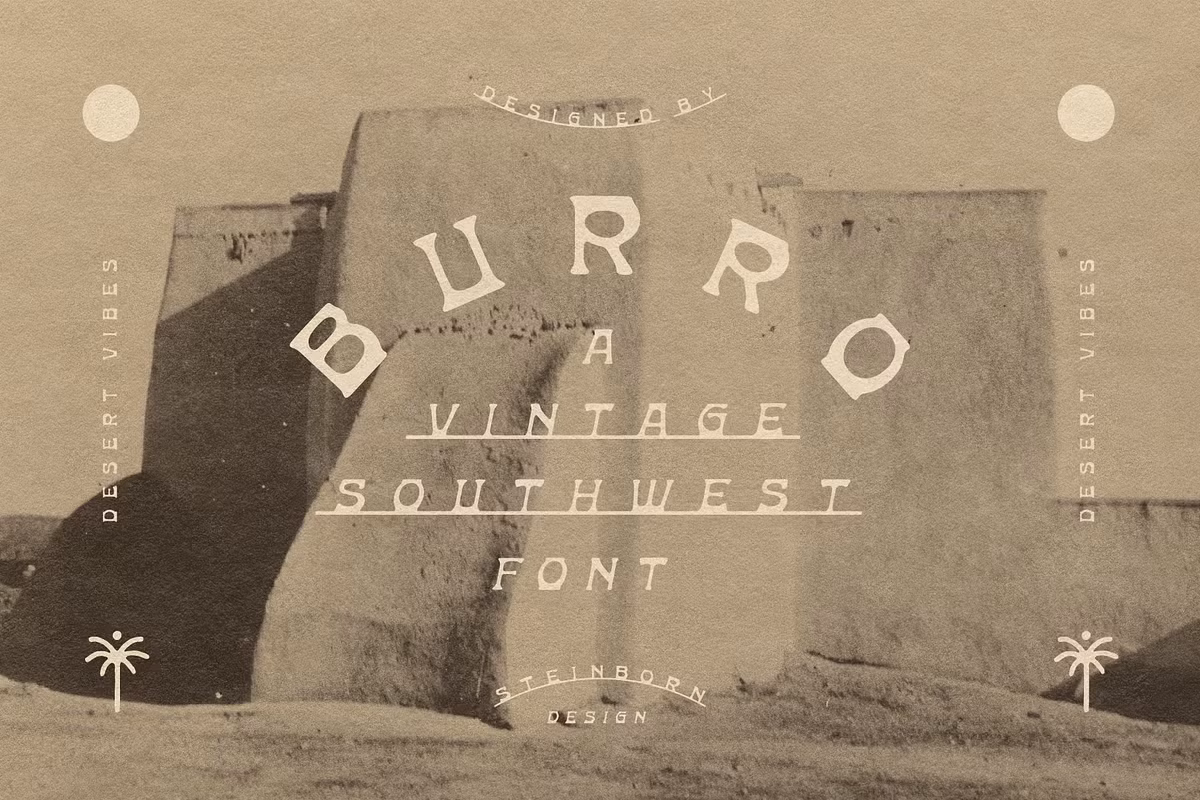
This rustic font is perfect for southwestern restaurant branding, Mexican cantina signage, cowboy bar graphics, desert resort materials, rodeo event posters, western wear packaging, ranch identity design, and authentic Tex-Mex promotional materials. Its rugged character makes it ideal for projects requiring genuine southwestern heritage and frontier spirit.
Burro Southwest Font is exciting because it captures the authentic essence of the American Southwest with letterforms that evoke dusty desert trails, weathered adobe buildings, and the timeless culture of frontier communities. The font features hand-crafted irregularities and organic textures that mirror the artisanal traditions of southwestern craftsmanship, from Native American pottery to Mexican folk art. Its genuine regional character ensures immediate recognition and cultural authenticity.
The Burro Southwest Font family typically includes regular and bold weights, along with distressed variations and decorative southwestern elements like cacti, horseshoes, and desert motifs. Many versions feature alternate characters with varying weathering effects and special symbols that enhance the authentic frontier aesthetic.
Whether you're creating southwestern tourism campaigns, regional restaurant chains, or desert lifestyle brands, Burro Southwest Font Free Download delivers genuine frontier authenticity with professional craftsmanship. This typeface transforms ordinary text into powerful statements that resonate with southwestern culture enthusiasts and travelers seeking authentic regional experiences. Its distinctive character adds immediate territorial credibility to any project while celebrating the rich heritage, natural beauty, and enduring spirit of the American Southwest and its vibrant cultural traditions.